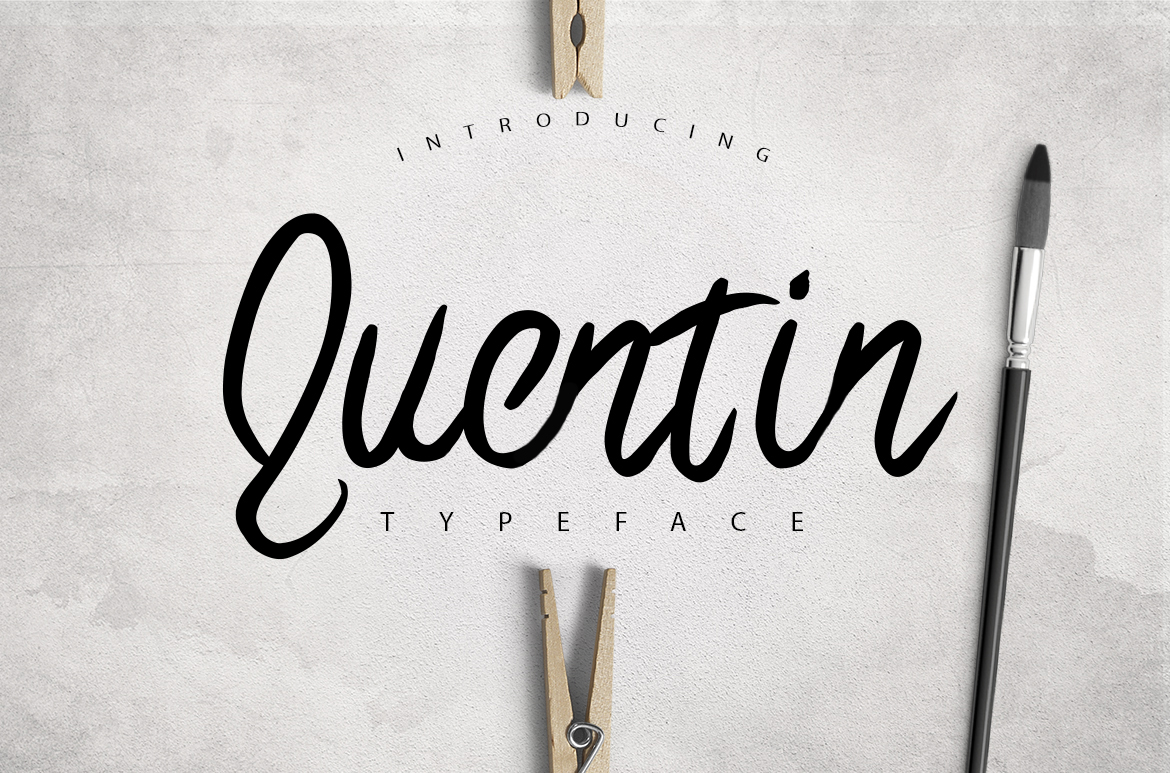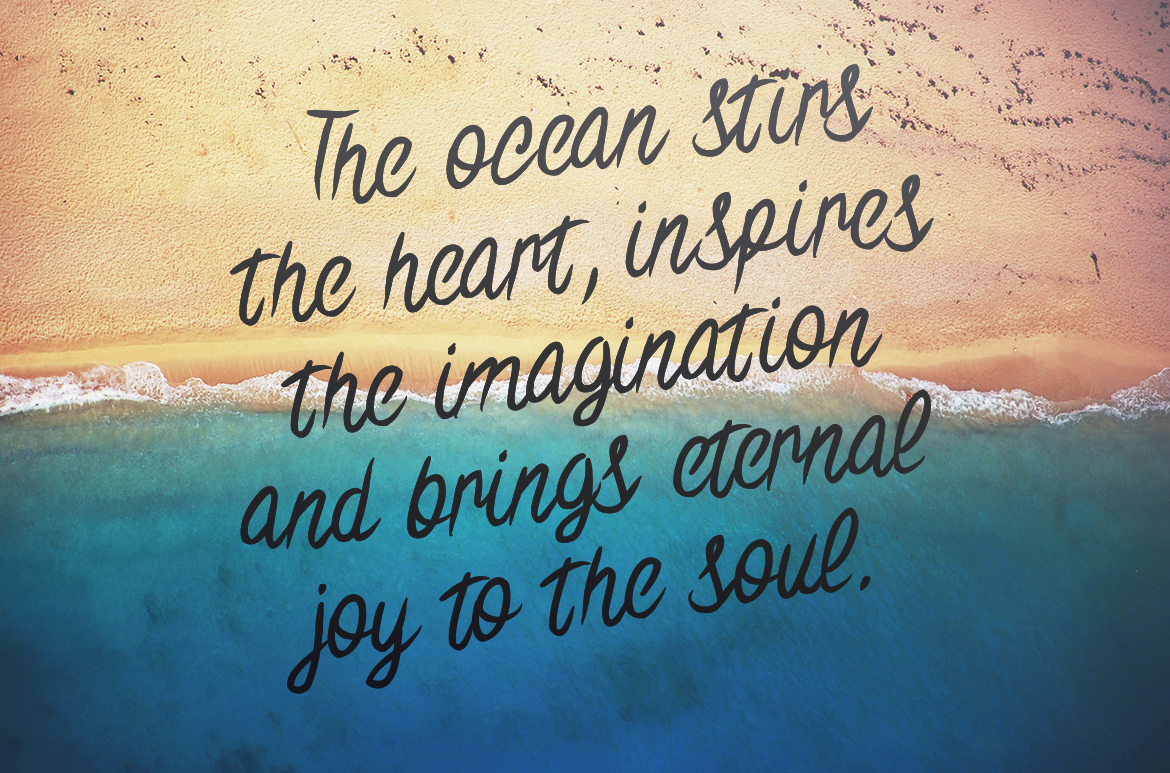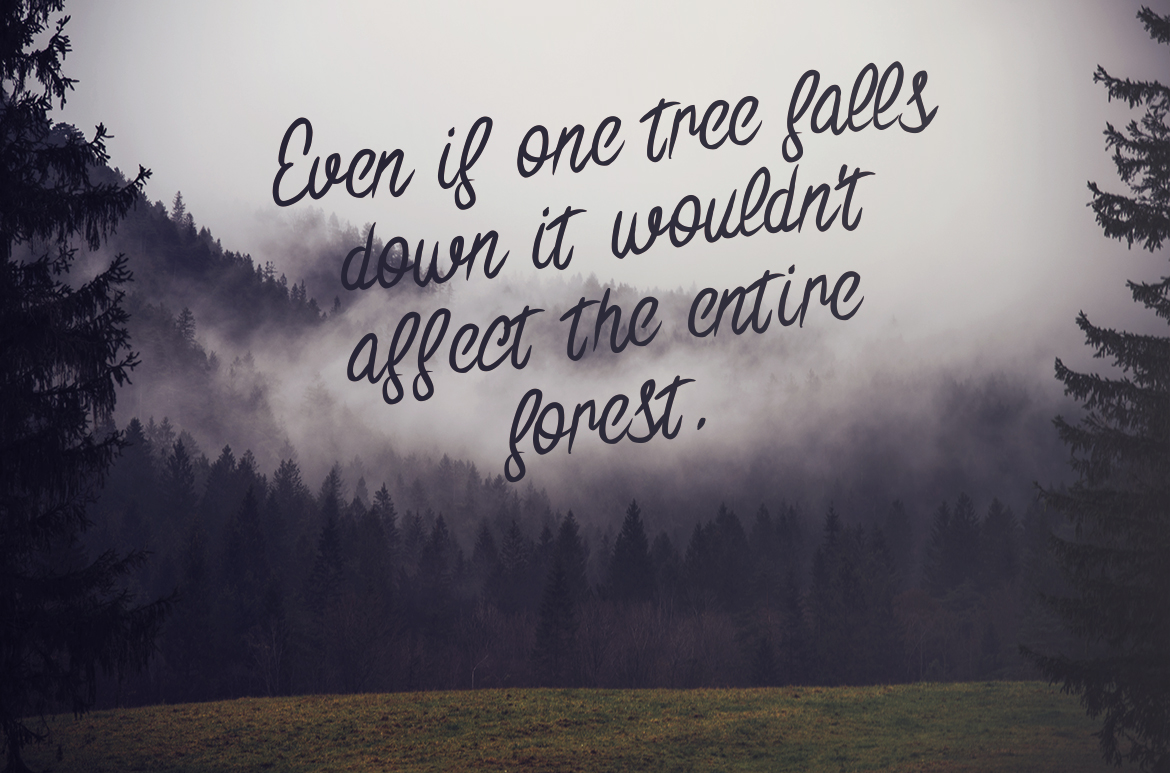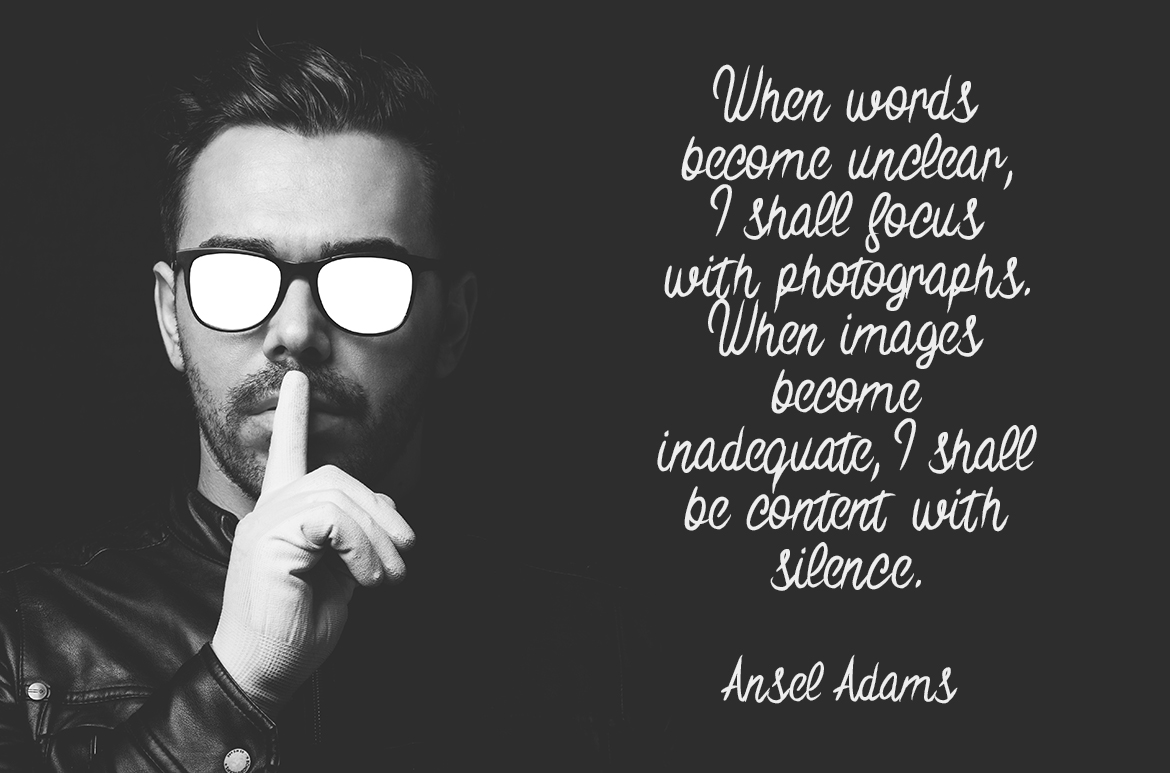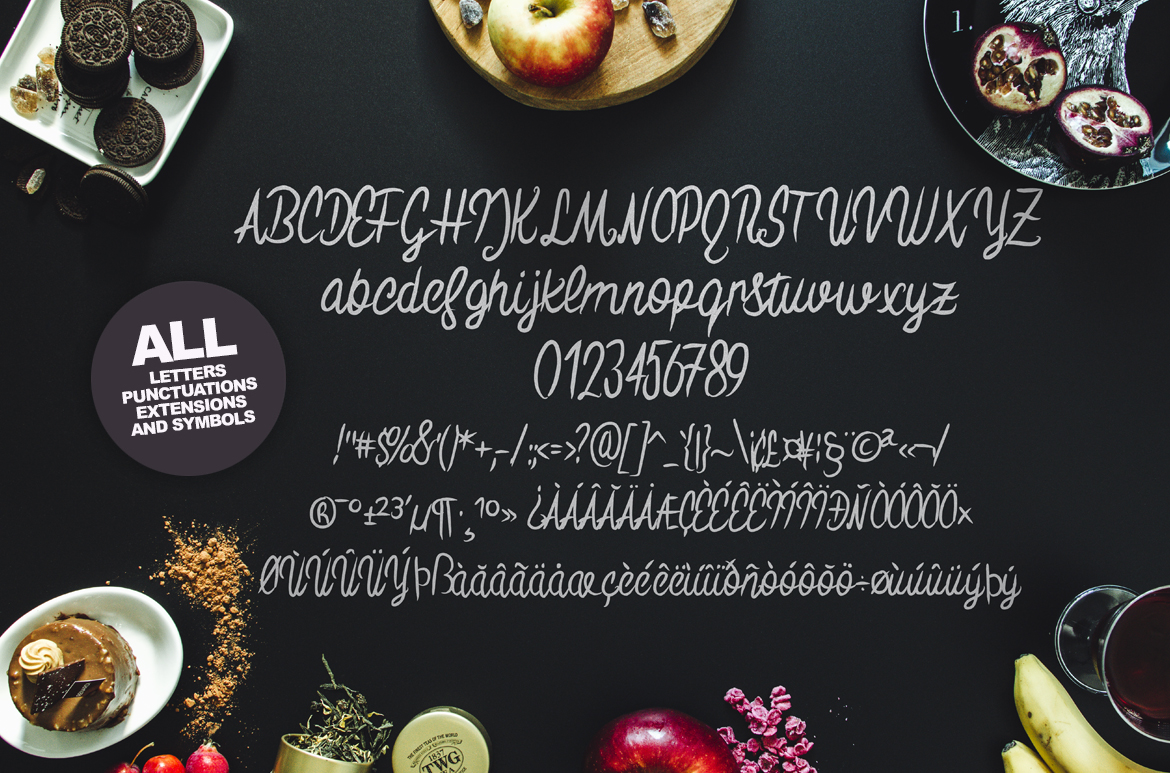
HomeScript FontsQuentin Font Script Fonts Quentin Font FacebookXPinterestWhatsApp Quentin Font Poster 2 Quentin Font Poster 3 Quentin Font Poster 4 Quentin Font Poster 5 About Quentin Font Quentin is a smooth hand-brushed font. The letters of the Quentin font match perfectly with each-other. DOWNLOAD ON CREATIVE FABRICAThis font is sold and delivered by Creative Fabrica. Font Canyon may earn a commission if you buy through this link. People also explored Lancelf Font Saltillo Font Barthley Font Mellynda Font Magethai Font Melonida Font Achila Font Maladena Font Handisa Font 307 0 TagsQuentin Font Previous articleRobix FontNext articlePunks and Skins Font LEAVE A REPLY Cancel reply Comment: Please enter your comment! Name:* Please enter your name here Email:* You have entered an incorrect email address! Please enter your email address here Website: Save my name, email, and website in this browser for the next time I comment. Personal Use Free Beattingvile Personal Use Free Read more about this font William Personal Use Free Read more about this font Shelly Personal Use Free Read more about this font Houstonville Personal Use Free Read more about this font BLOG 5 Fonts That Will Dominate Design Trends in 2026 5 Fonts for 2026 That Will Dominate Design Trends Typography plays a critical role in visual communication, and as we look ahead to 2026, itβs... Elegant Wedding Invitation Fonts β Handwritten & Script Fonts Free vs Paid Fonts: Why Investing in Premium Fonts Is Worth It Free Fonts Risk: Why Free Fonts Can Be Dangerous for Designers